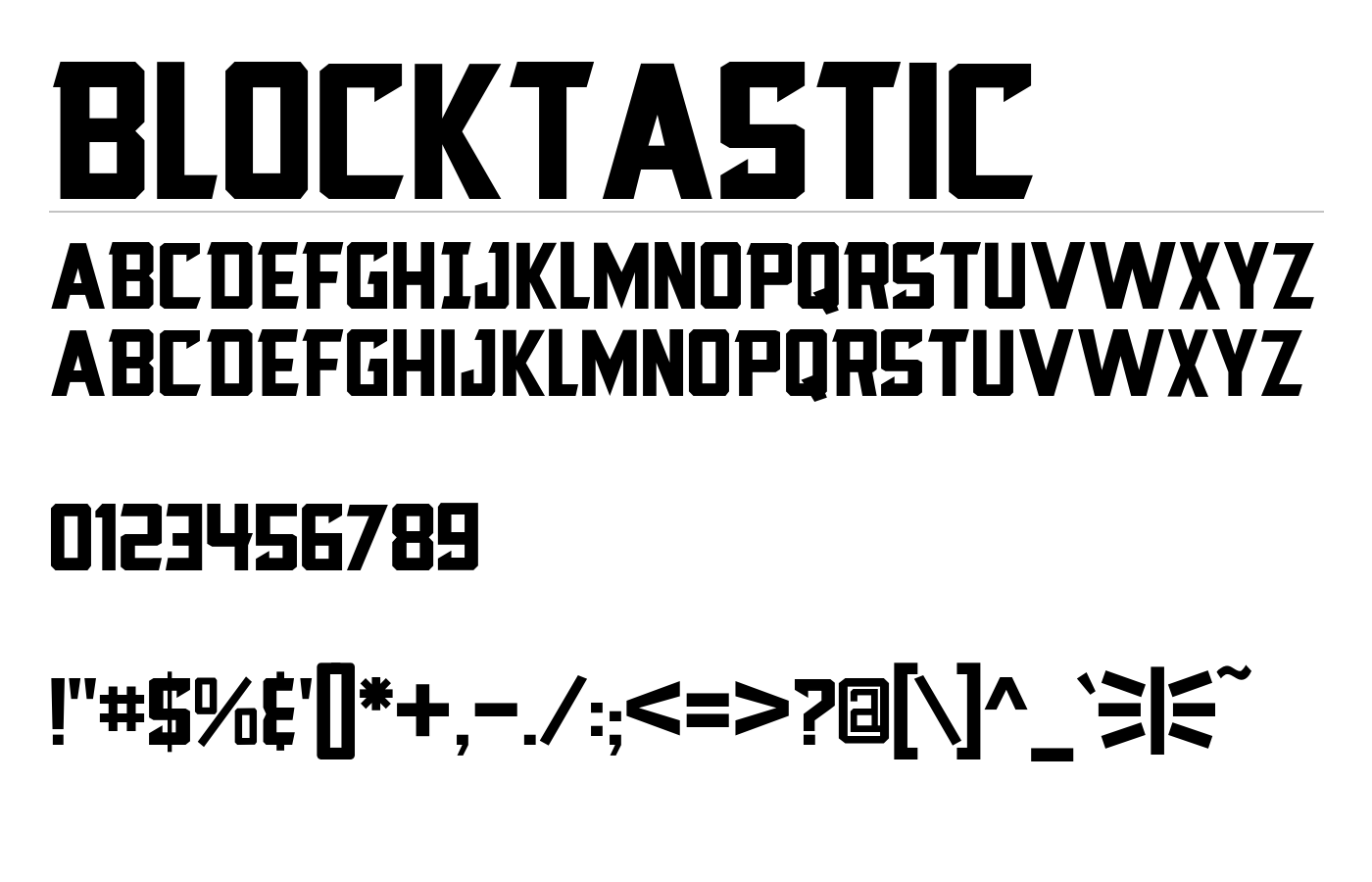
Blocktastic is a bold, condensed sans serif font with a strong, geometric design that features sharp angles and clean lines. Its high-impact style and uniform weight make it perfect for headlines, logos, and branding that require a modern, powerful look with a slightly industrial feel. This font works best in display contexts where attention-grabbing, assertive typography is needed.
Blocktastic Font
About Blocktastic Font